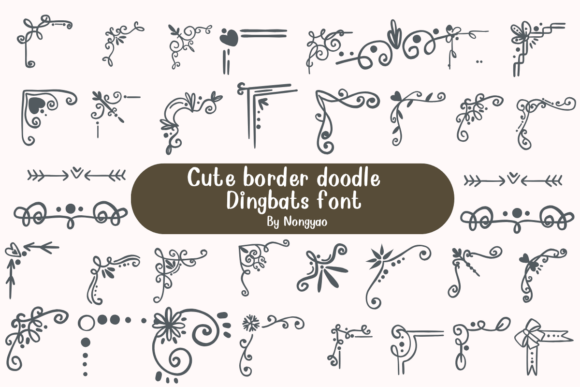
Cute Border Doodle Font: Adding Whimsy to Your Designs
Have you ever sat at your desk, pencil in hand, staring at a blank sheet of paper, waiting for inspiration to strike? You start doodling, letting your pen wander across the page, and before you know it, a beautiful, quirky border has emerged. It’s moments like these that remind us of the joy and freedom of creating something from scratch.
Enter the Cute Border Doodle Font – a digital equivalent of those carefree doodles. This charming font is designed to add a playful touch to your designs, from invitations and greeting cards to digital art and social media graphics. With its customizable options and compatibility with popular design software, the Cute Border Doodle Font is a valuable asset for designers looking to infuse their work with a touch of whimsy.
- Unique Characteristics: The Cute Border Doodle Font features a playful and whimsical design, with intricate doodle patterns and cute borders that add a touch of personality to any design.
- Number of Glyphs: The font contains a wide range of glyphs, including uppercase and lowercase letters, numbers, punctuation marks, and special characters, making it a versatile font for various design applications.
Cute Border Doodle Font Review
I recently had the chance to work with the Cute Border Doodle Font, and I must say it’s a charming addition to any design project. ✨ One of the things that stands out about this font is its playful, whimsical feel, making it perfect for children’s books, greeting cards, and other projects where you want to add a touch of fun. ✨ The font also has a wide range of uses, from headings to body text, and its doodle-like aesthetic makes it versatile enough to pair well with many different design elements.
However, there are a few limitations to keep in mind. ⚠️ One of the main issues I encountered was the font’s lack of scalability. At smaller font sizes, the doodles can become pixelated and difficult to read. ⚠️ Additionally, the font may not be the best choice for projects that require a more serious or professional tone, as its playful nature can come across as unprofessional.
Overall, I think the Cute Border Doodle Font is a great addition to any designer’s toolkit, as long as you’re aware of its limitations. With a little creativity and planning, it can add a lot of personality to your designs.
- Playful, whimsical feel
- Wide range of uses (headings, body text)
- Pair well with many different design elements
The Cute Border Doodle Font is perfect for creating playful and whimsical designs, such as:
– Invitations and party decorations
– Social media graphics and ads
– Children’s book illustrations and educational materials
Tips for getting the most out of the Cute Border Doodle Font include:
– Experimenting with different font sizes and styles to create visual interest
– Combining the font with other playful elements, such as doodles and illustrations